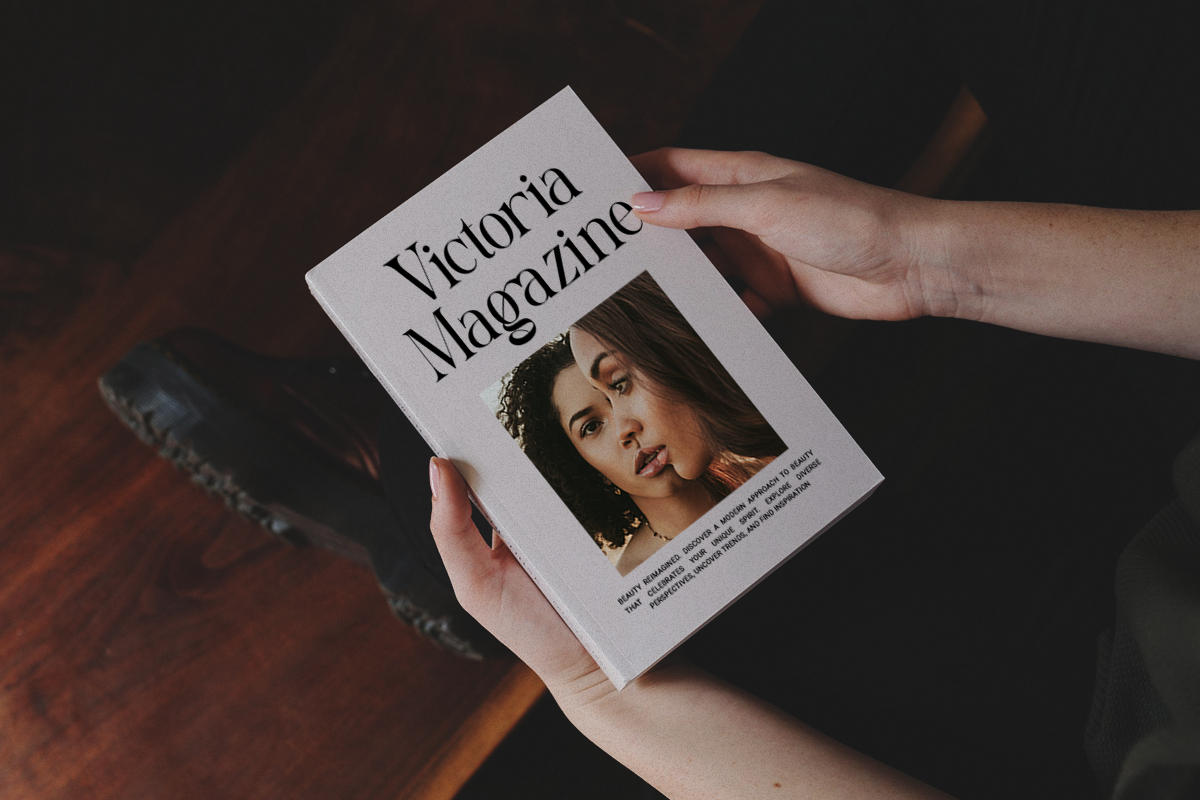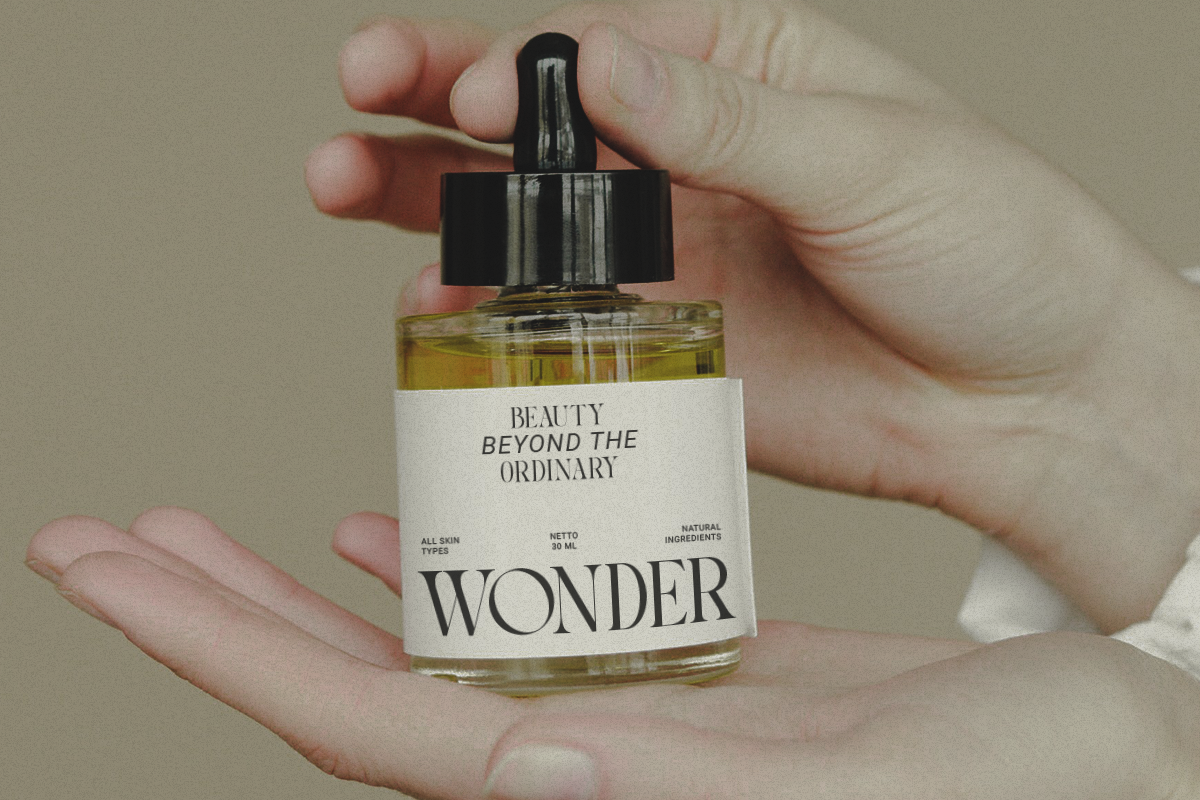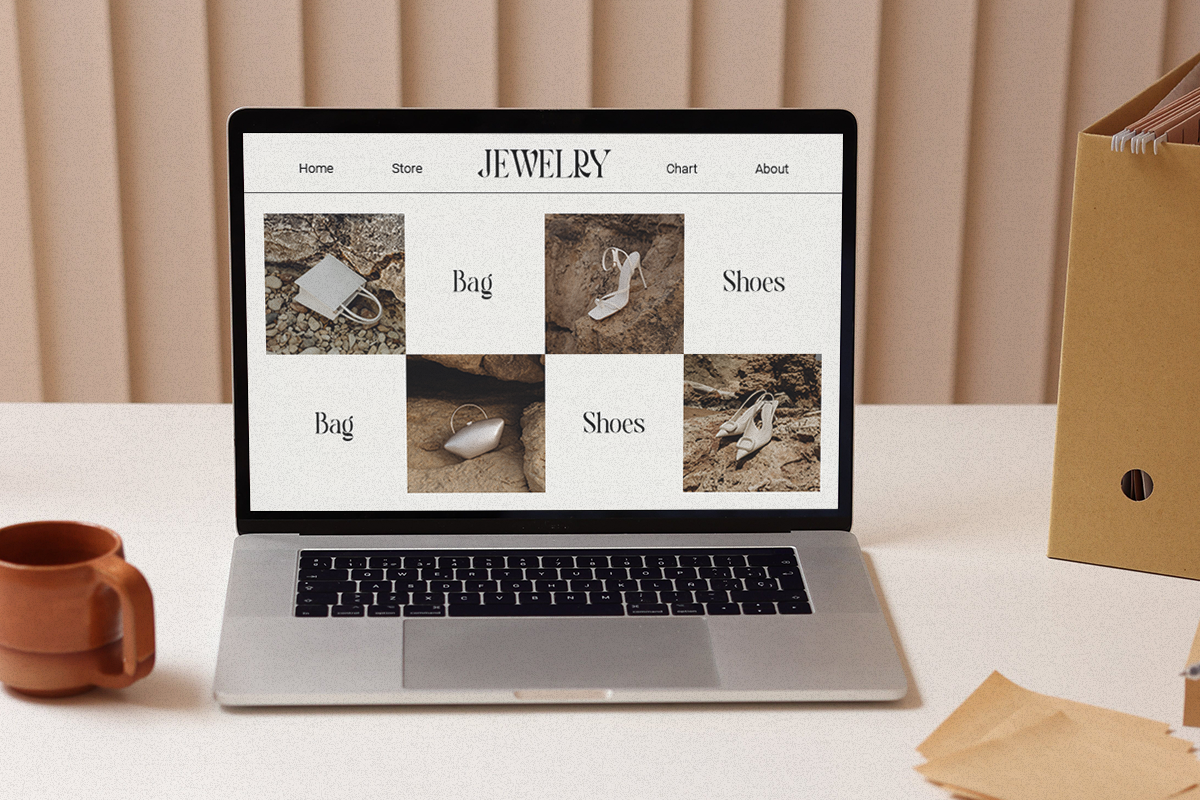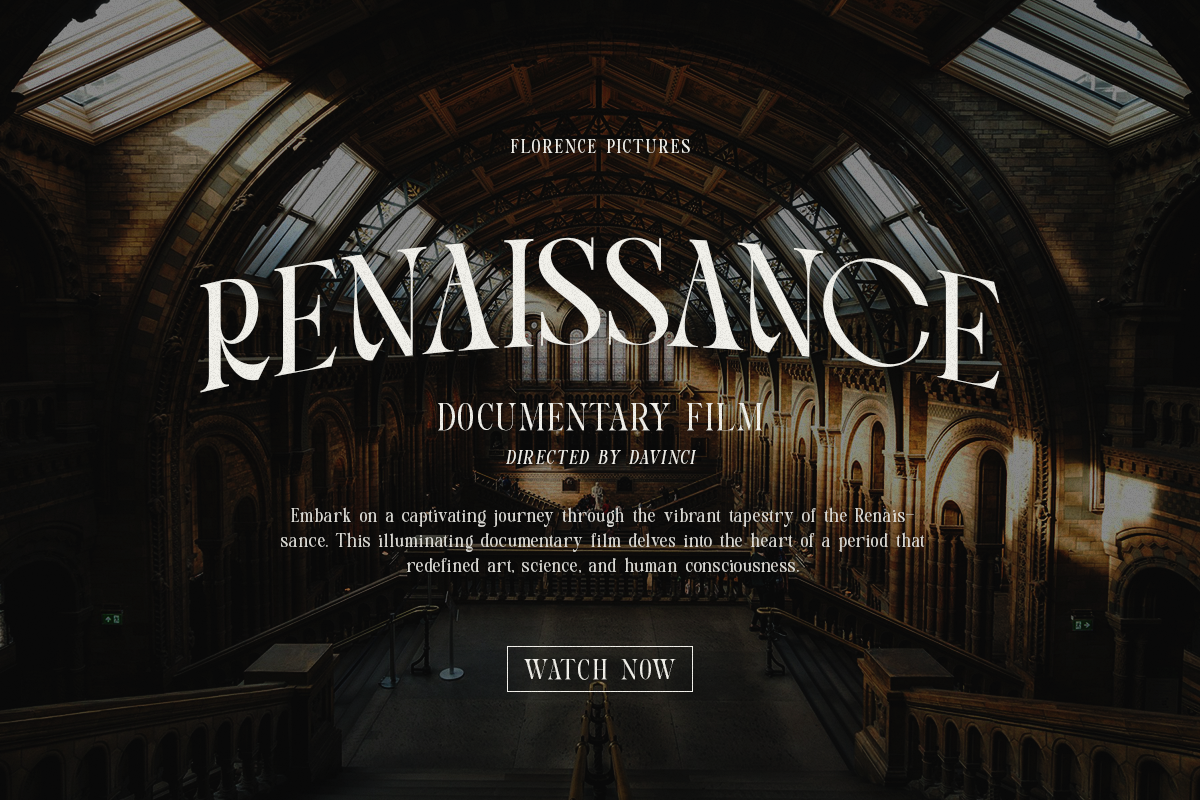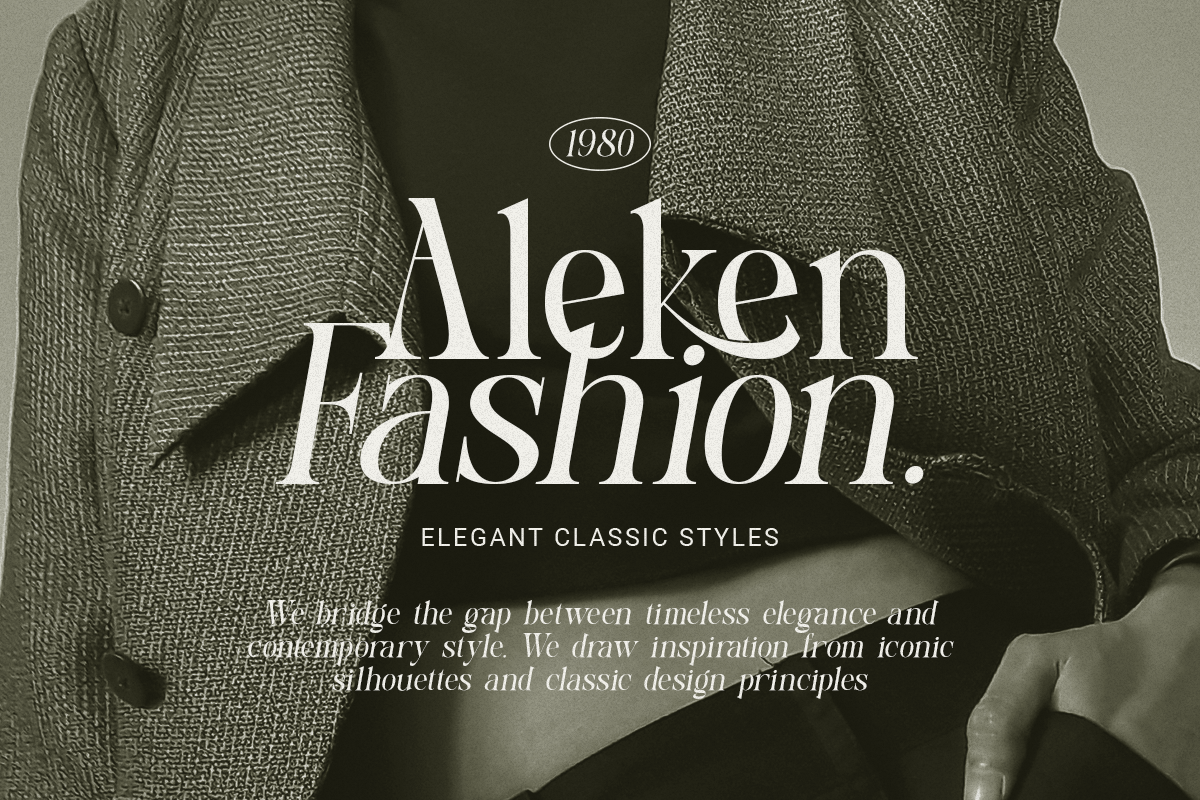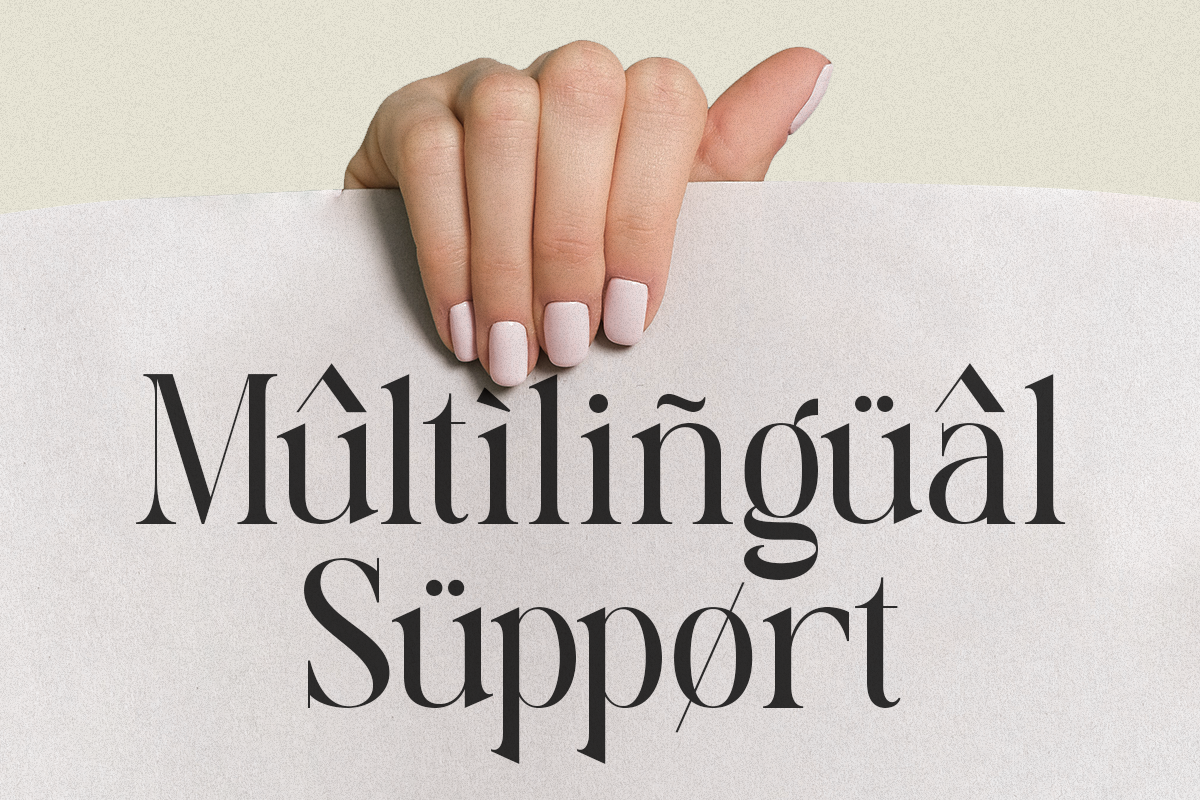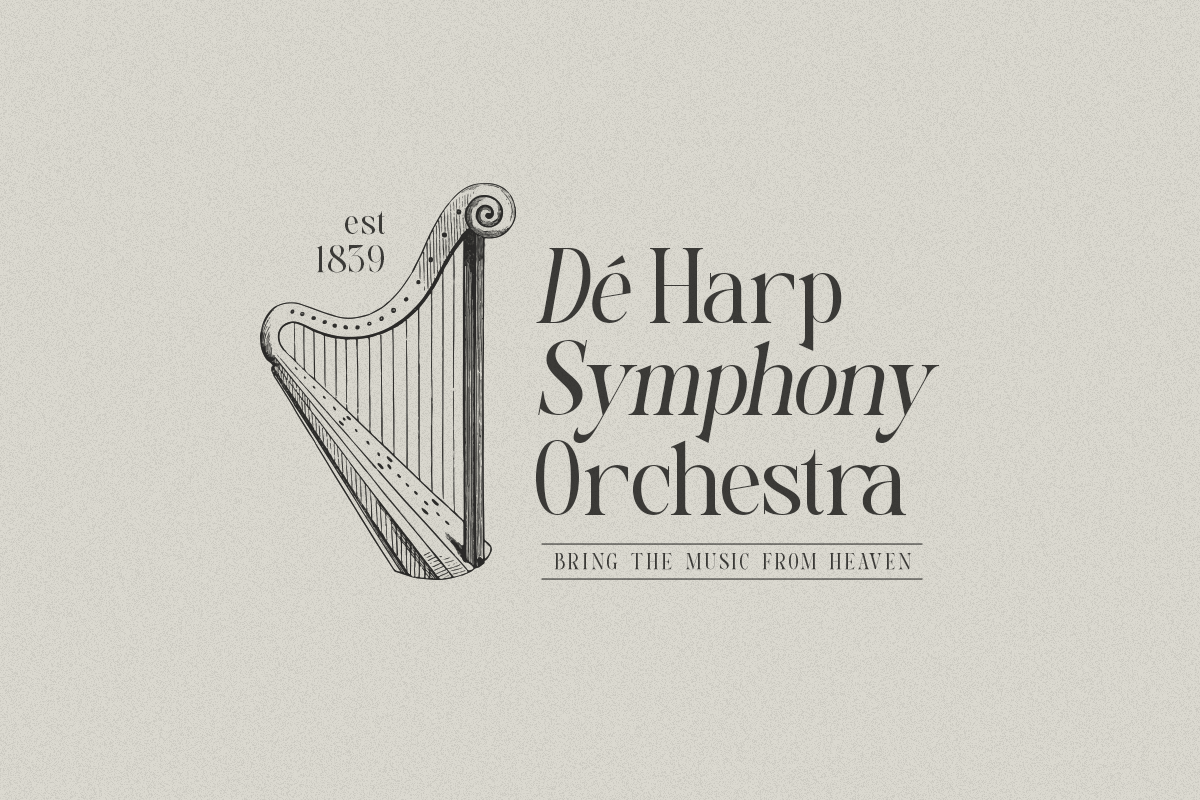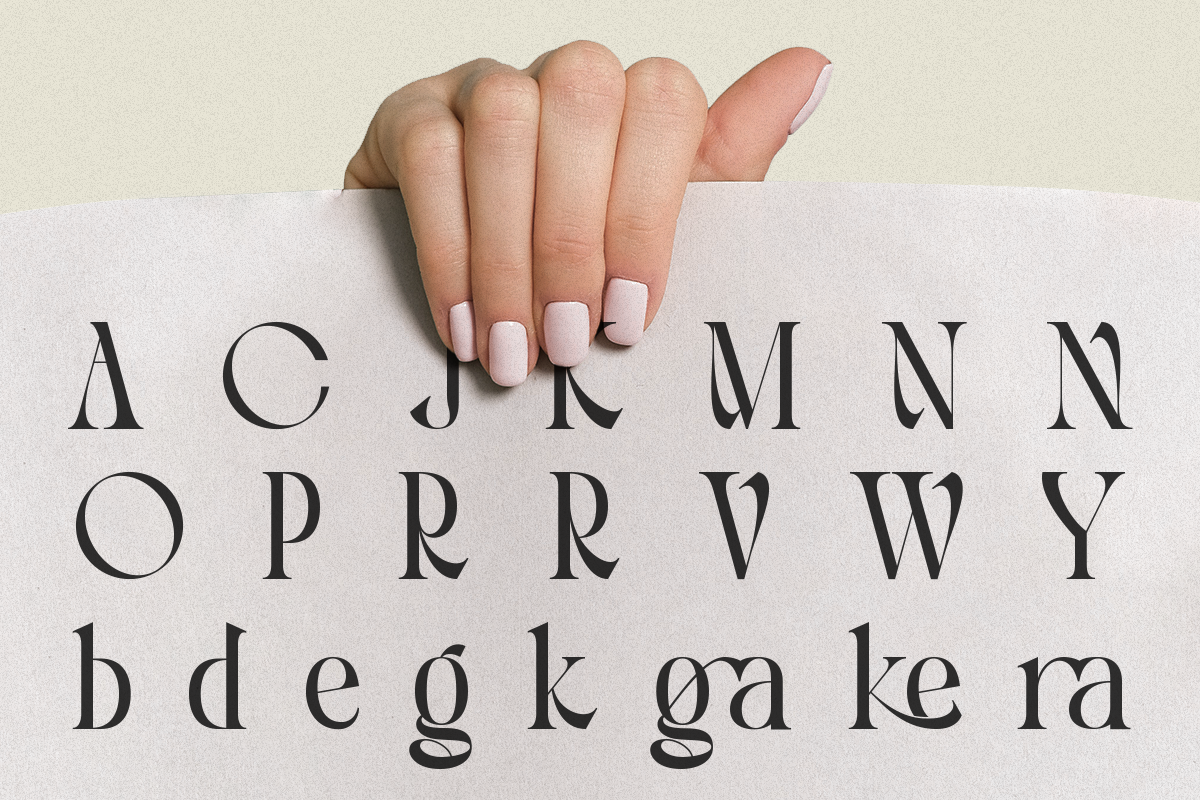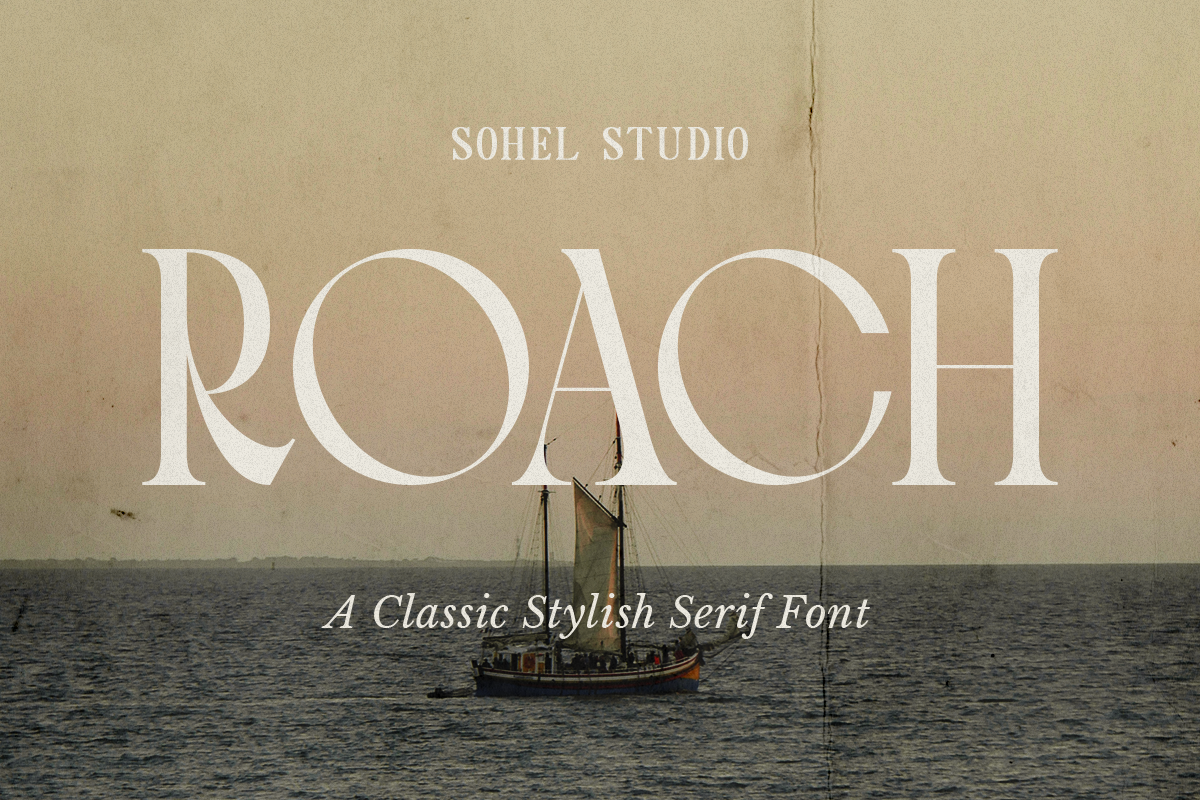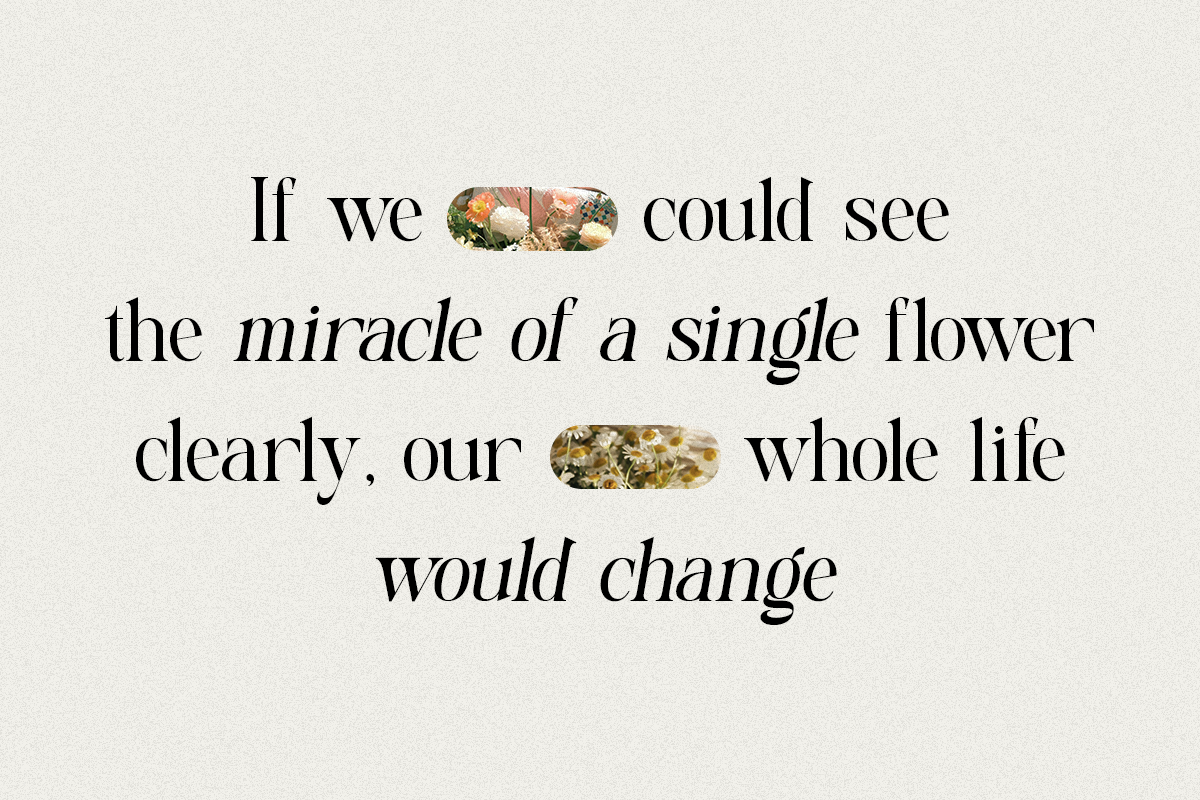
Roach - Modern Display Typeface
Roach Trendy, elegant, luxury, retro & modern style serif font for your new fancy projects. Stylish, creative and classic style on Roach font will be great for any modern or classy branding project. Lot of alternates and ligatures will help you to create unique and original logo design or website header! Enjoy :)